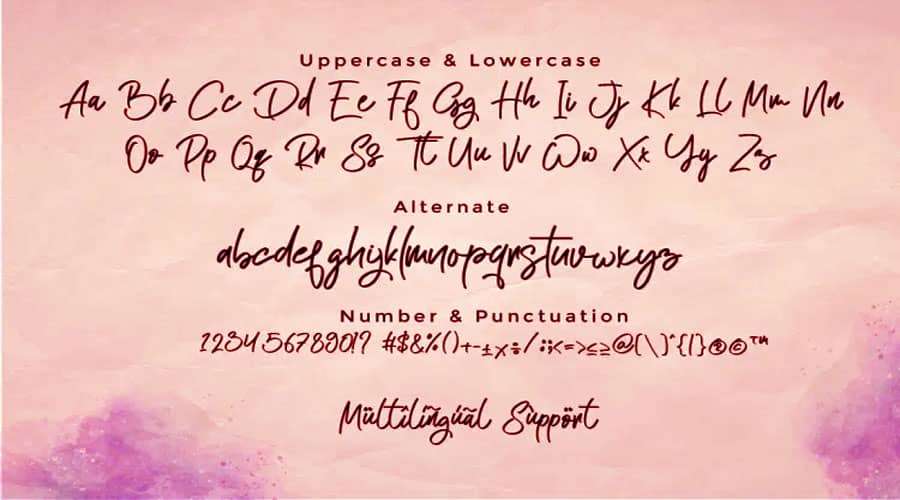
Atakana Handwritten Script Font
Atakana Handwritten Script Font is another Script and Handwritten textual style. The textual style is planned and distributed afkaristudio on October 19, 2020.
Font Features:
- Upper and Lowercase
- Number and Punctuation
- Beginning and Ending Swashes
- Lowercase Alternate
- Special Ligatures
This text style is reasonable for any marking of your plan needs, wedding greeting, heartfelt venture, studio brand, logo, solicitations, web-based media posts, clothing, greeting, banner, bistro/resto sign and others. The font mostly gives a retro vibe to every work.